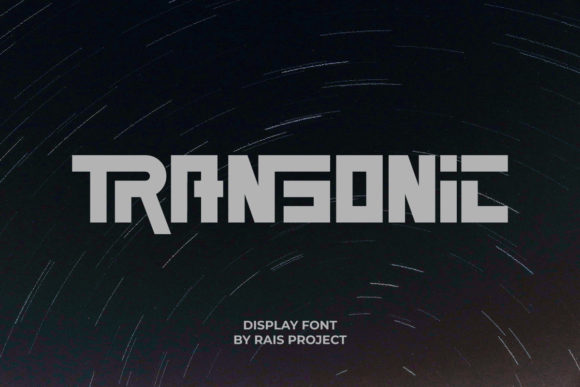
Prepare to be captivated by the enthralling presence of Transonic, a display font that will ignite your designs with unparalleled boldness and geometric precision. Immerse yourself in the world of captivating magazine titles, where Transonic reigns supreme, empowering you to craft headlines that leap off the page and leave an indelible mark on your audience.
Unleash your creativity with Transonic's remarkable versatility, a font crafted to transcend the boundaries of convention. Its meticulously designed characters dance harmoniously, forming words that shimmer with elegance and command attention. Embrace the power of Transonic to elevate your designs to new heights, transforming your projects into masterpieces that captivate and inspire.
Experience the effortless splendor of Transonic's PUA encoding, granting you seamless access to a treasure trove of glyphs and swashes. Unleash your imagination and weave intricate designs that exude sophistication and charm. With Transonic at your fingertips, the possibilities are boundless, inviting you to embark on a creative journey that knows no limits.
Indulge in the visual symphony of Transonic, a font that harmonizes boldness and precision with effortless grace. Its squared edges lend an air of authority, while its rounded corners introduce a touch of playfulness, creating a captivating visual interplay that draws the eye. Allow Transonic to ignite the spark of inspiration within you, propelling your designs to the forefront of innovation and excellence.